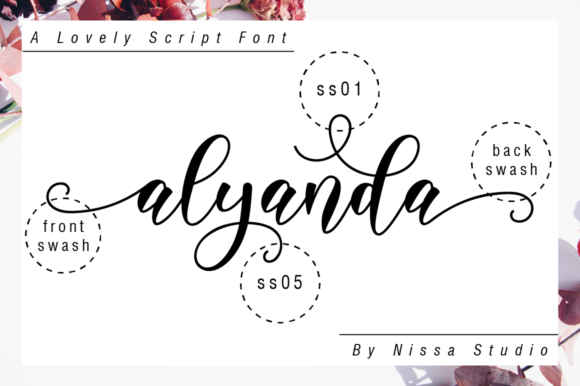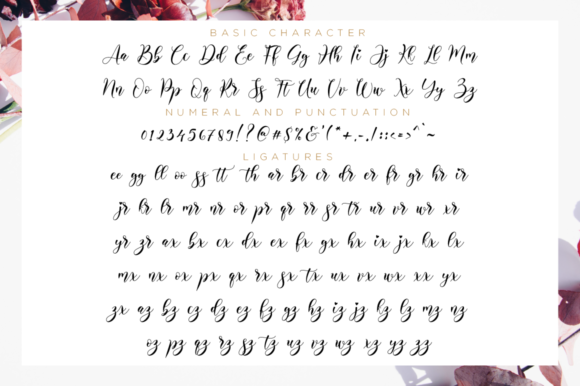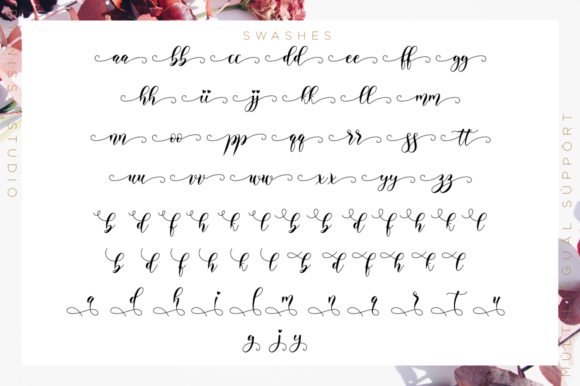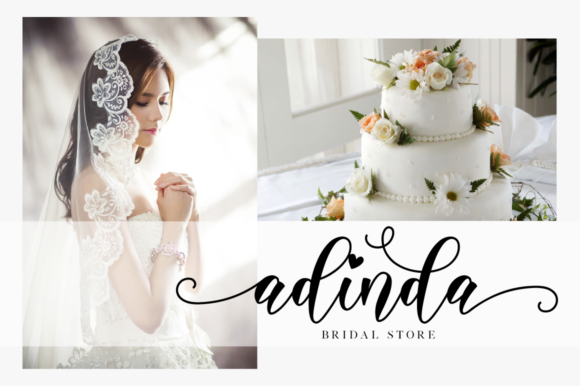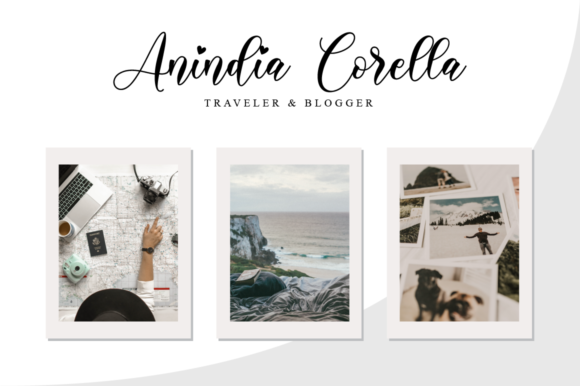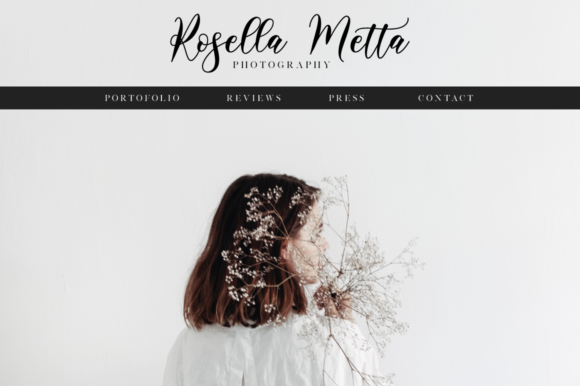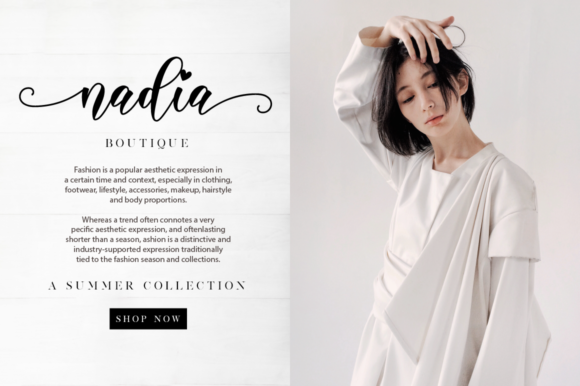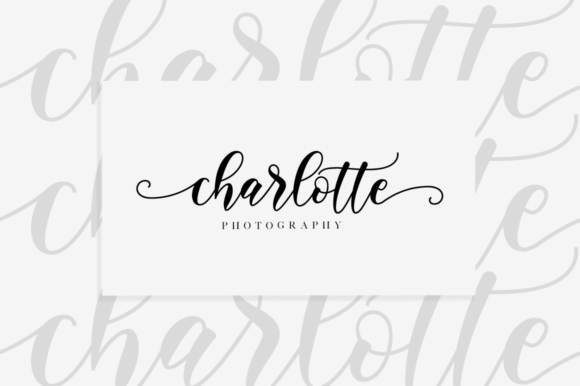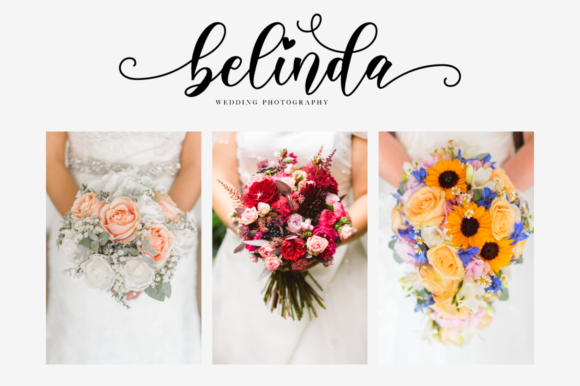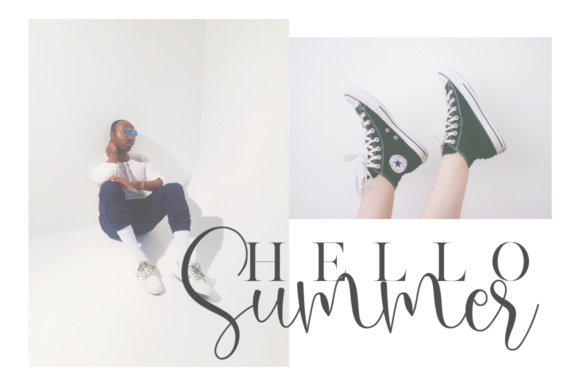
Alyanda Script Font
About Alyanda Script Font
Alyanda is a beautiful script with a classy, elegant, and modern look.
Fall in love with its authentic vibe and turn any design project into a standout!